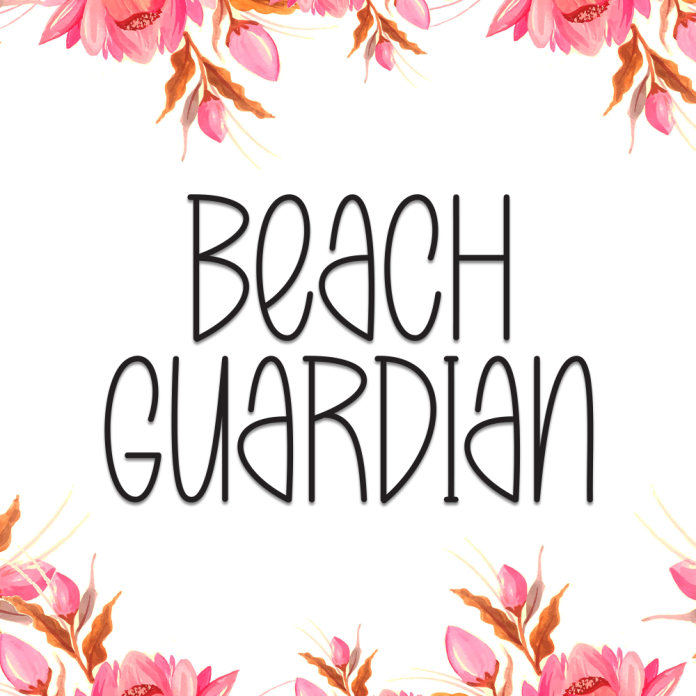
Beach Guardian is a bold and energetic display font inspired by beach life, summer vibes, and ocean adventures. Its chunky, eye-catching letters are perfect for grabbing attention and creating fun, coastal-themed designs.
Ideal for summer posters, surf brand logos, beach event flyers, T-shirts, and children’s book titles, Beach Guardian brings a splash of sunshine to every project. With its playful yet solid style, this font ensures your message stands out loud and clear.
Bold, fun, and beach-themed letterforms
Great for display use and outdoor branding
Perfect for summer, tropical, or seaside visuals
Let your design ride the waves of creativity with the vibrant spirit of Beach Guardian.